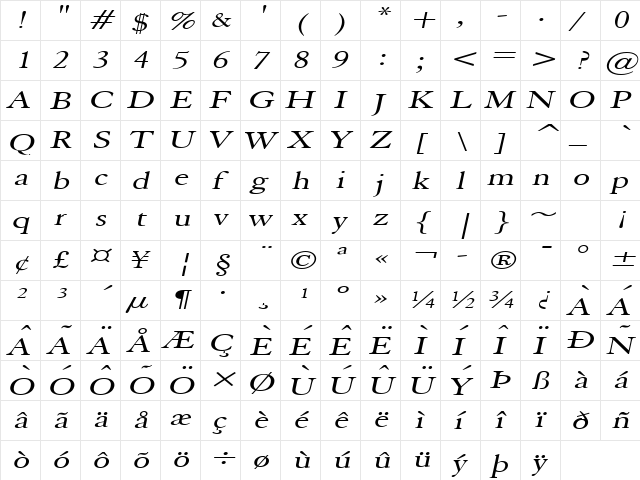
Elephant Extended Italic
Design Context for Elephant Extended Typeface
Elephant Extended is a composed and adaptable typeface that performs quietly and consistently across a wide range of design contexts. The dynamic lean of this cut emphasises speed and emphasis in any layout.
Pro Tip: Try Elephant Extended for annotation and caption copy alongside an upright companion — the contrast in angle creates a dynamic but ordered typographic system.